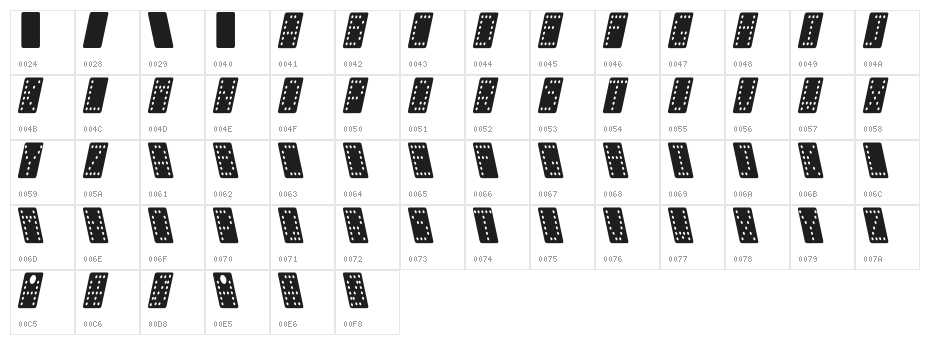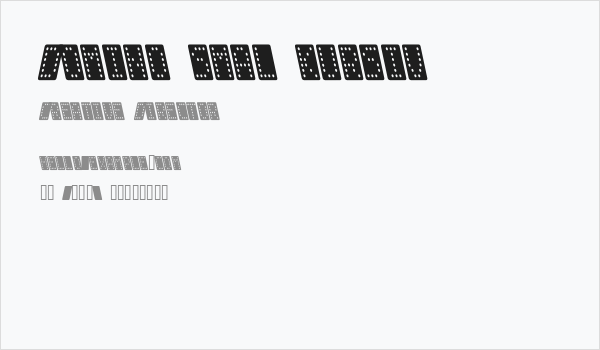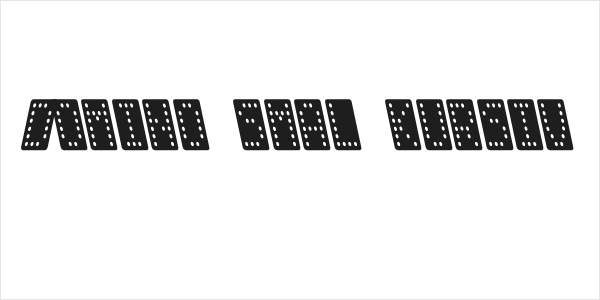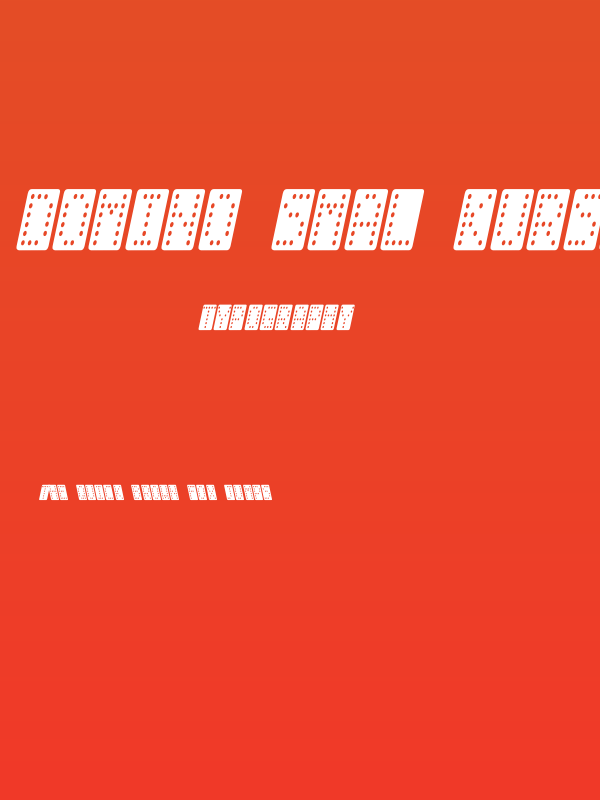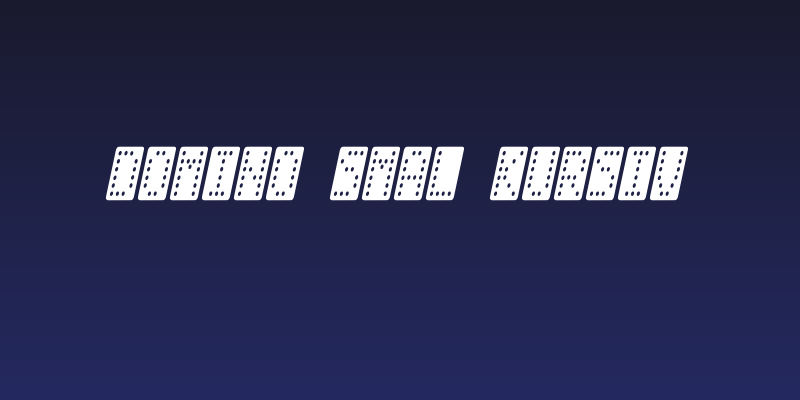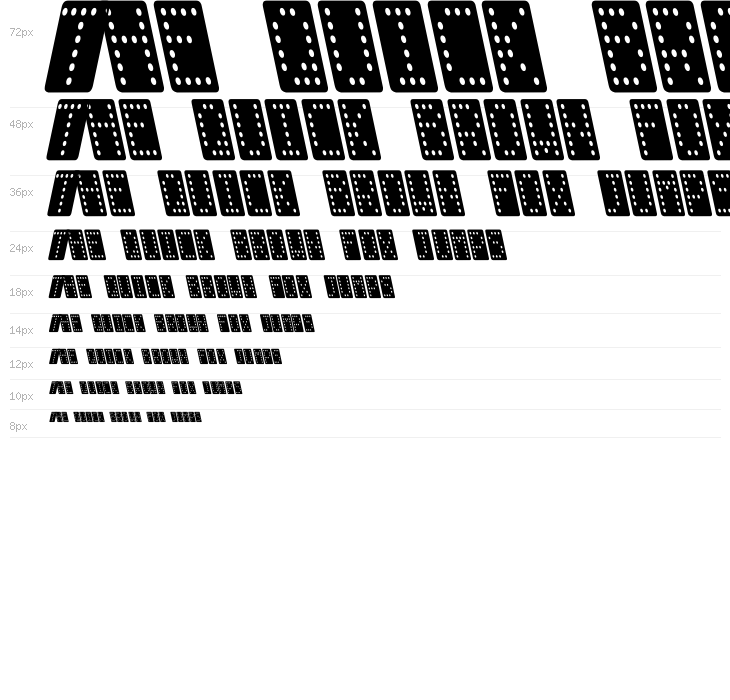
Domino smal kursiv Font
Domino smal kursiv Description
This font is a playful and creative representation of domino tiles, where each character is depicted as a domino piece with varying dot patterns. The design is bold and eye-catching, with a strong visual impact due to its solid black shapes and contrasting white dots. The characters are slightly tilted, adding a dynamic and whimsical touch to the overall appearance. This font is highly decorative and not intended for traditional text use, but rather for thematic and artistic projects where a unique and unconventional style is desired.
| Use Case | Logos, Posters, Creative Invitations |
| Proposed Projects | Ideal for game-themed designs, playful posters, creative invitations, or any project requiring a unique and decorative touch. |